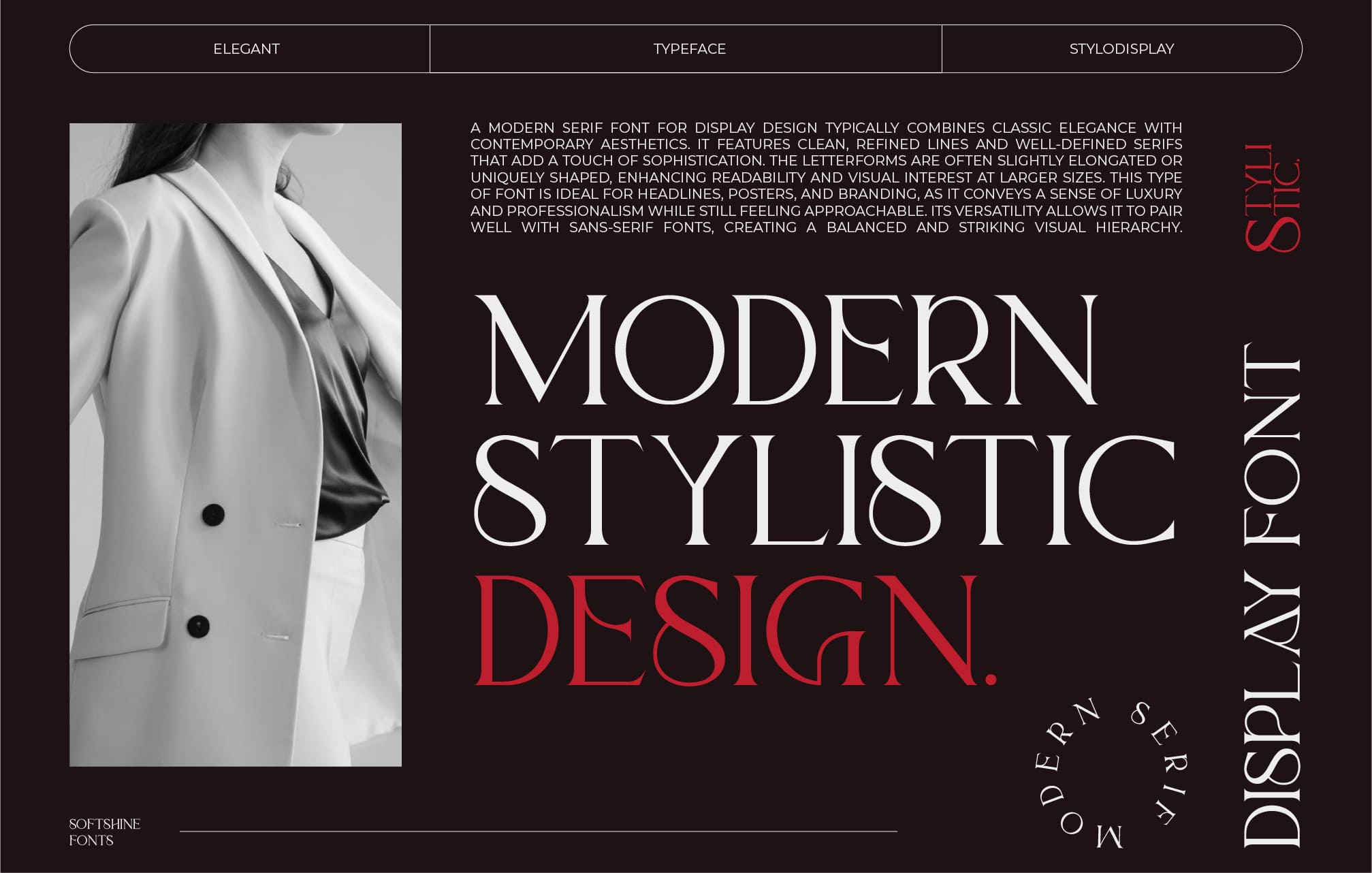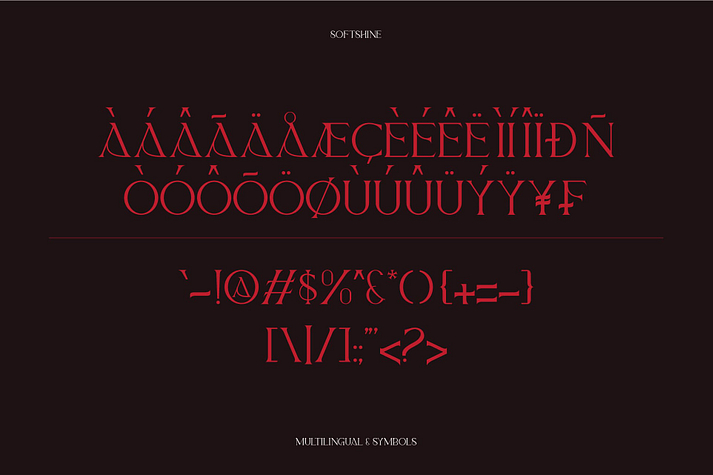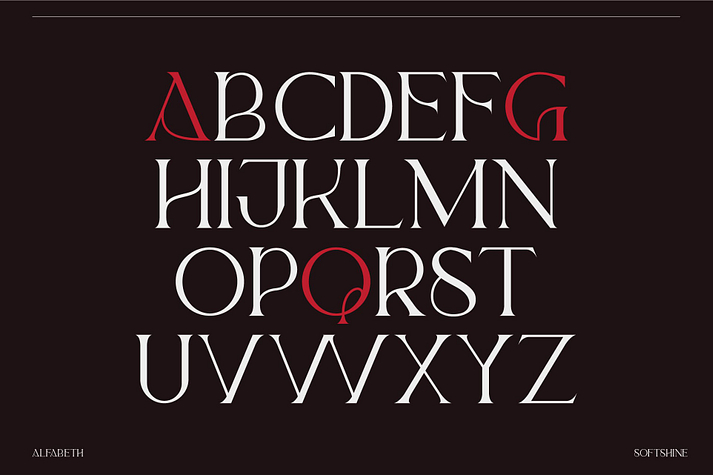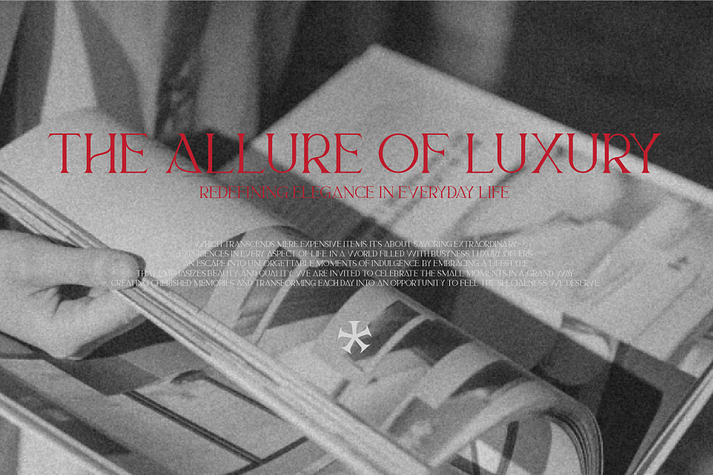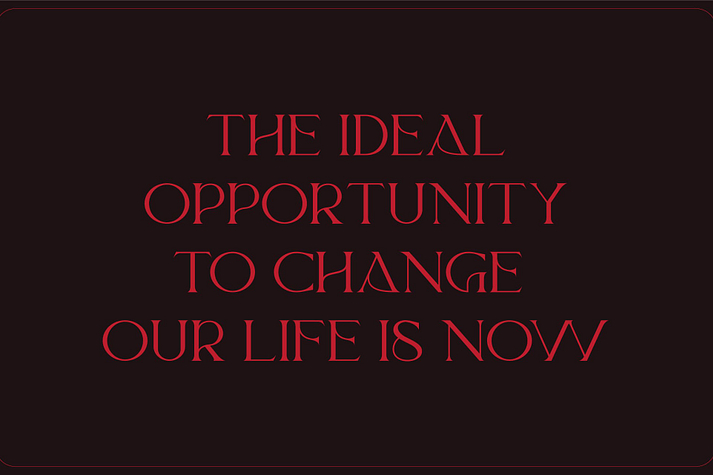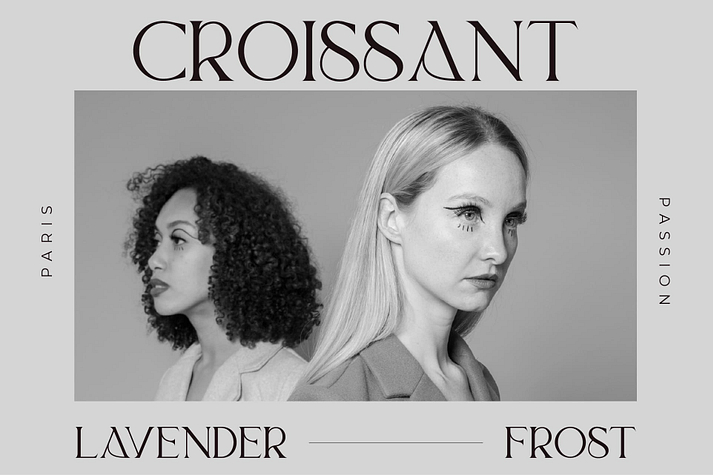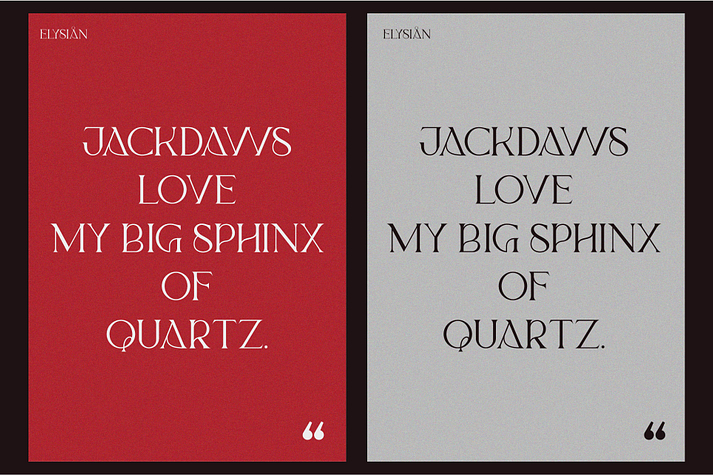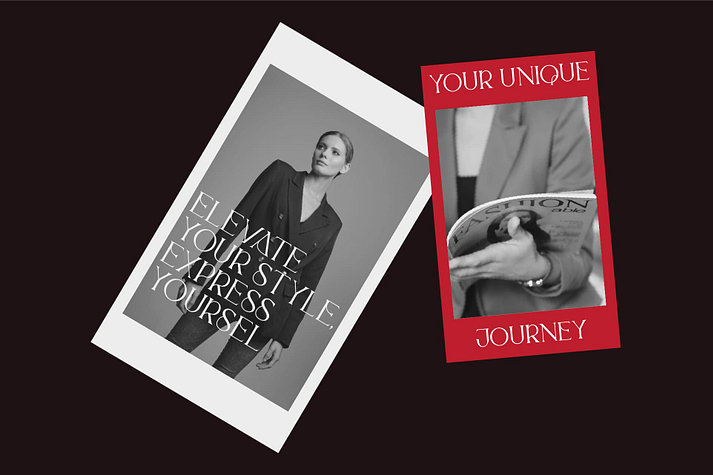
SOFTSHINE
Softshine is an art nouveau font family published by Hans Type.
Softshine a modern serif font for display design typically combines classic elegance with contemporary aesthetics. it features clean, refined lines and well-defined serifs that add a touch of sophistication. the letterforms are often slightly elongated or uniquely shaped, enhancing readability and visual interest at larger sizes. this type of font is ideal for headlines, posters, and branding, as it conveys a sense of luxury and professionalism while still feeling approachable. its versatility allows it to pair well with sans-serif fonts, creating a balanced and striking visual hierarchy.